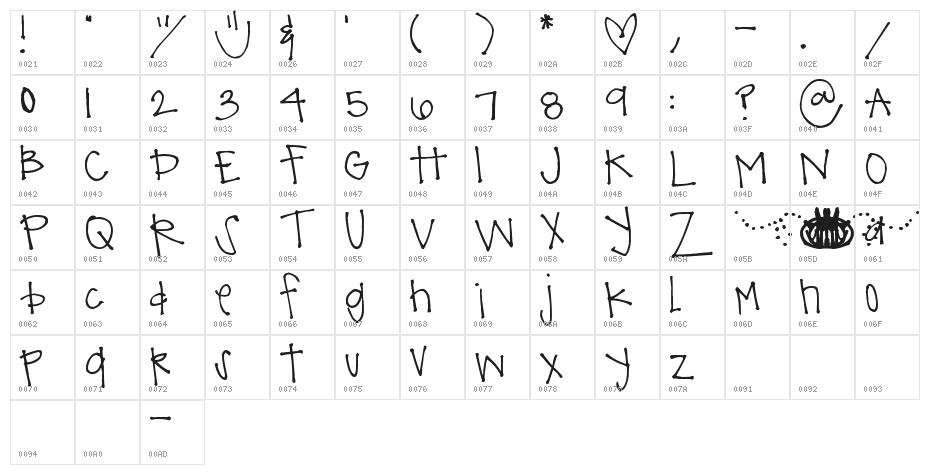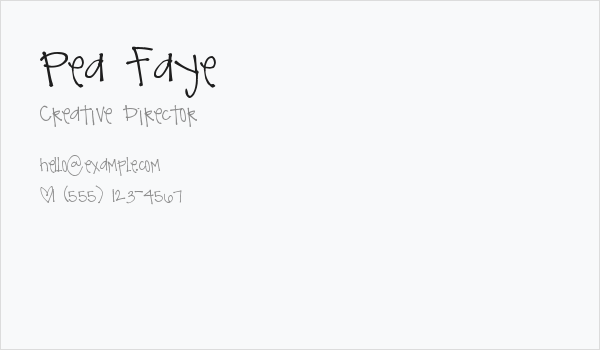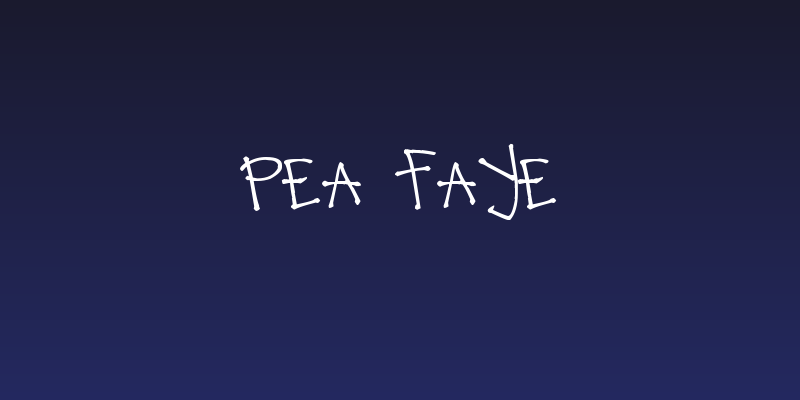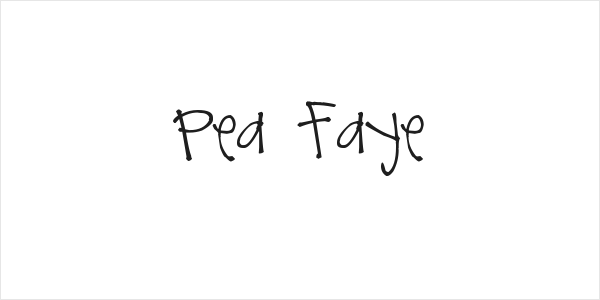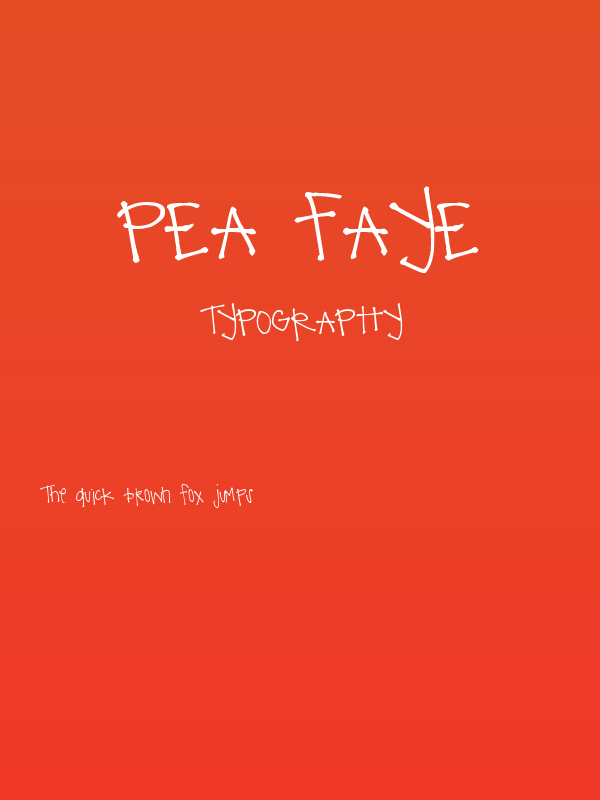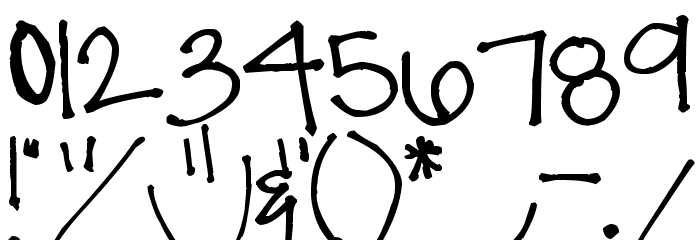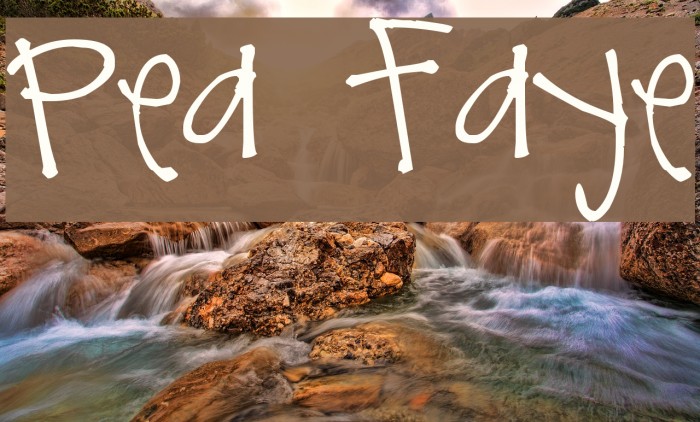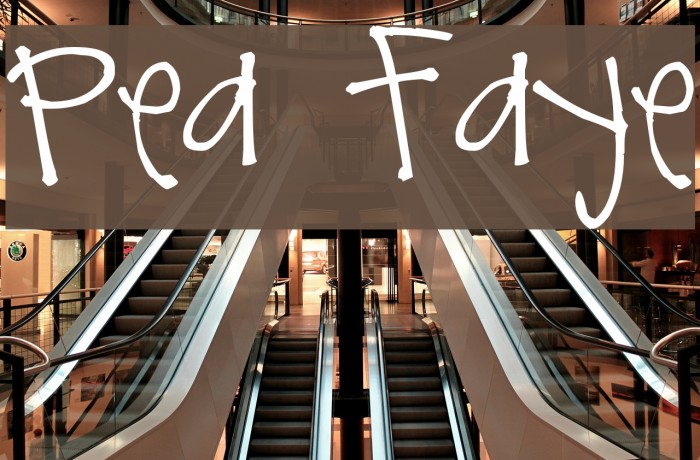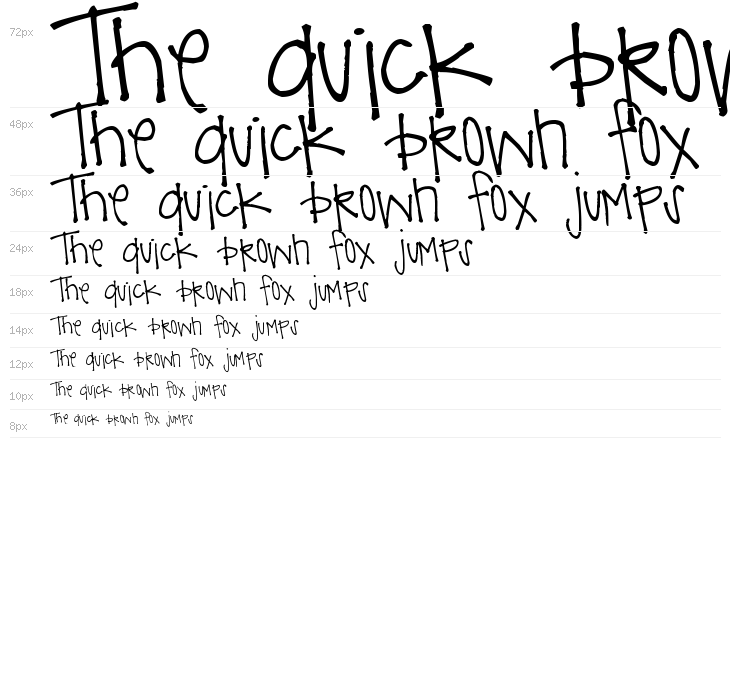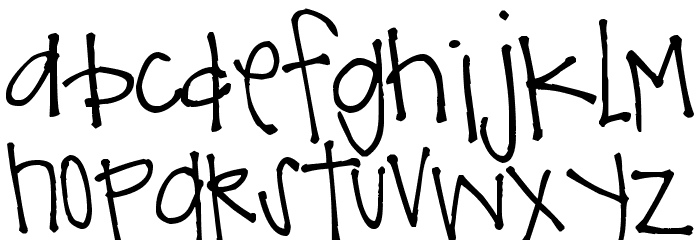
Pea Faye Font
Pea Faye Description
This font exhibits a playful and whimsical handwritten style, characterized by its irregular and slightly uneven strokes. The letters are tall and narrow, with a casual, informal appearance that suggests a personal touch. The uppercase and lowercase letters maintain a consistent style, with slight variations that add to the font's charm. Numbers and special characters are included, matching the overall aesthetic. The font's organic feel makes it suitable for projects that require a friendly and approachable look.
| Overall Style | Casual |
| Use Case | Headlines, Informal text, Creative projects |
| Proposed Projects | Ideal for greeting cards, children's books, casual invitations, and personal branding. |